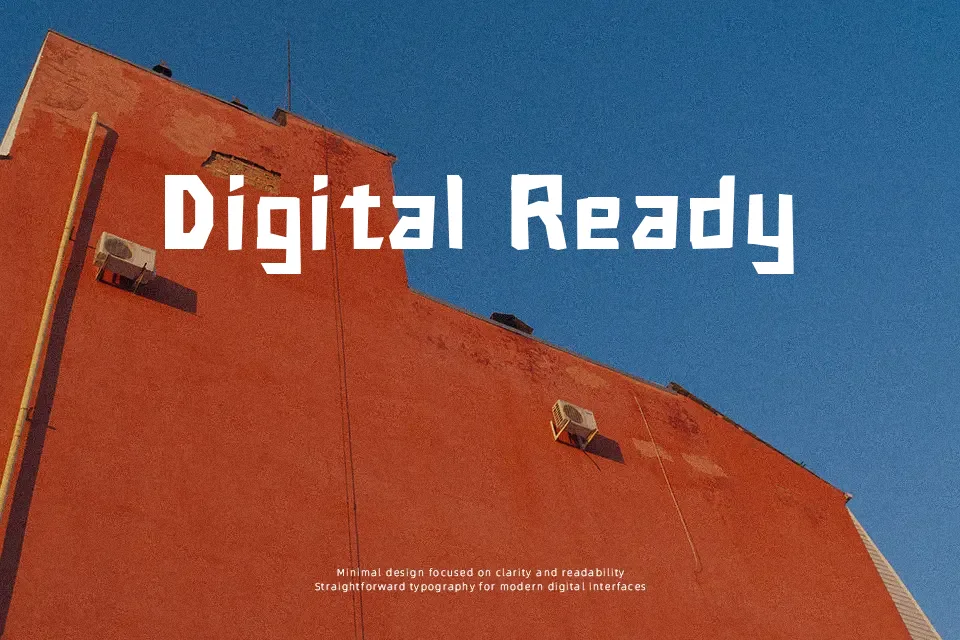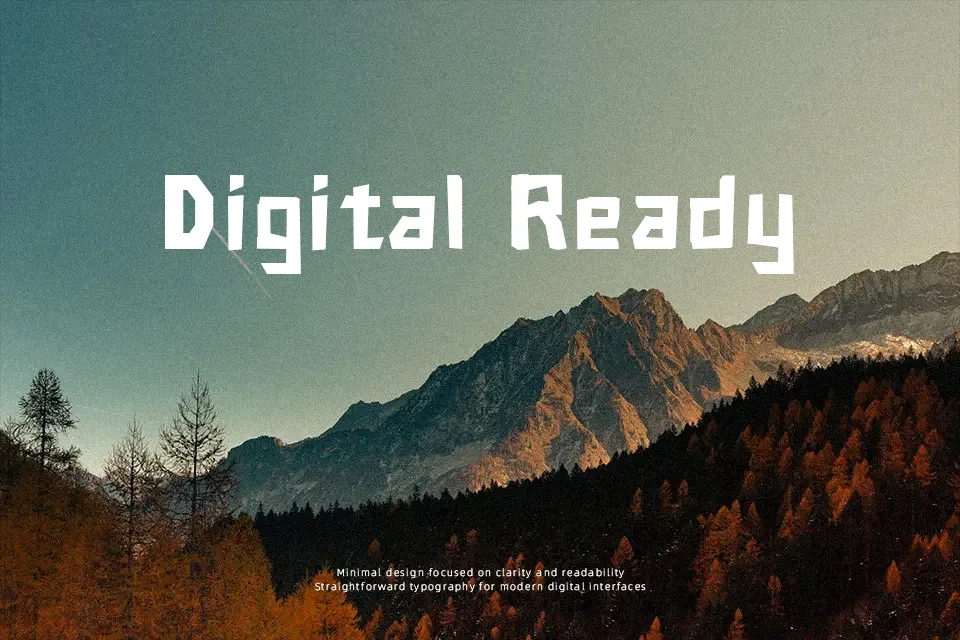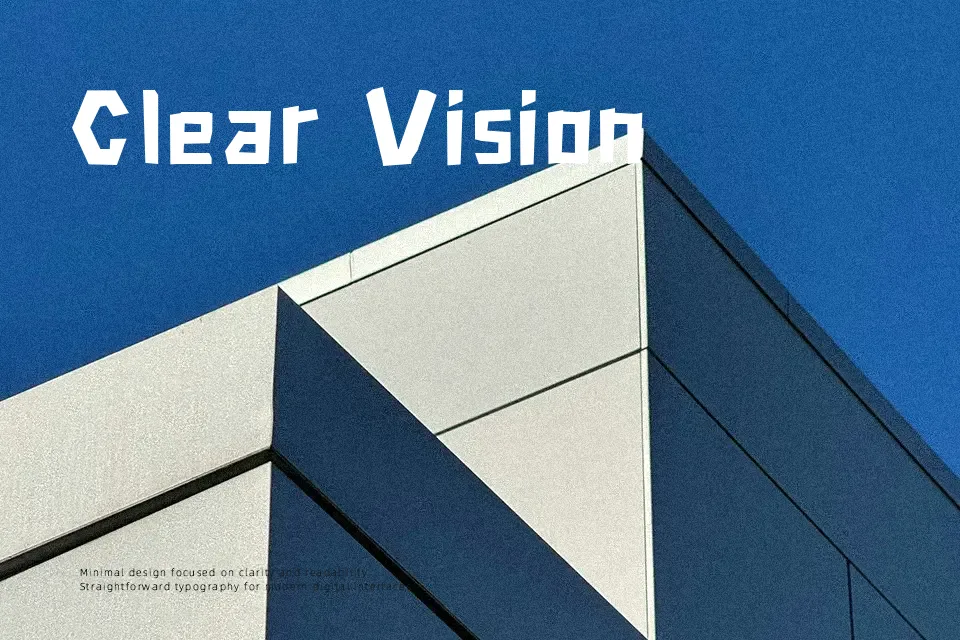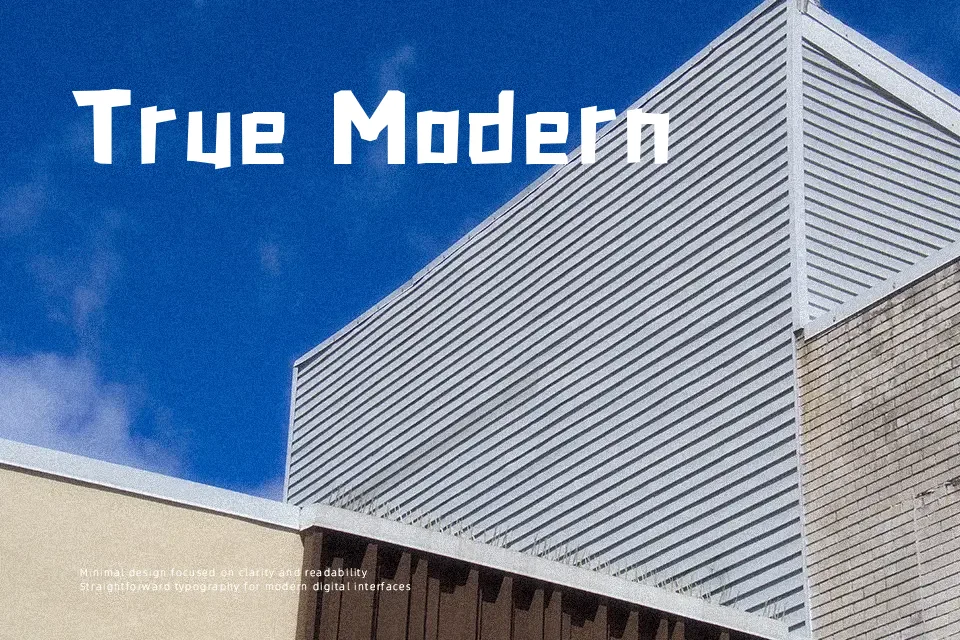
CF Kremzin Font
CF Kremzin Font delivers an energetic display presence through its heavy stroke weight, quirky silhouettes, and bold geometric construction. The letterforms feature low stroke contrast with distinct angular cuts and stylized cutouts, producing a lively rhythm across words. Its balanced spacing supports clear legibility in short headlines and large title treatments, though dense forms reduce comfort during extended reading. Because of its intense visual weight and decorative nature, the typeface excels in arcade posters, novelty packaging, and cartoon branding. However, the design loses clarity at caption sizes and is less suitable for continuous paragraphs or technical layouts.
Best For: poster headlines,novelty packaging,arcade game titles,cartoon branding
Not Ideal For: continuous body text,technical manuals,small caption copy,mobile ui labels
Perfect for gaming, headline, and logo, with a bold and cartoon style.